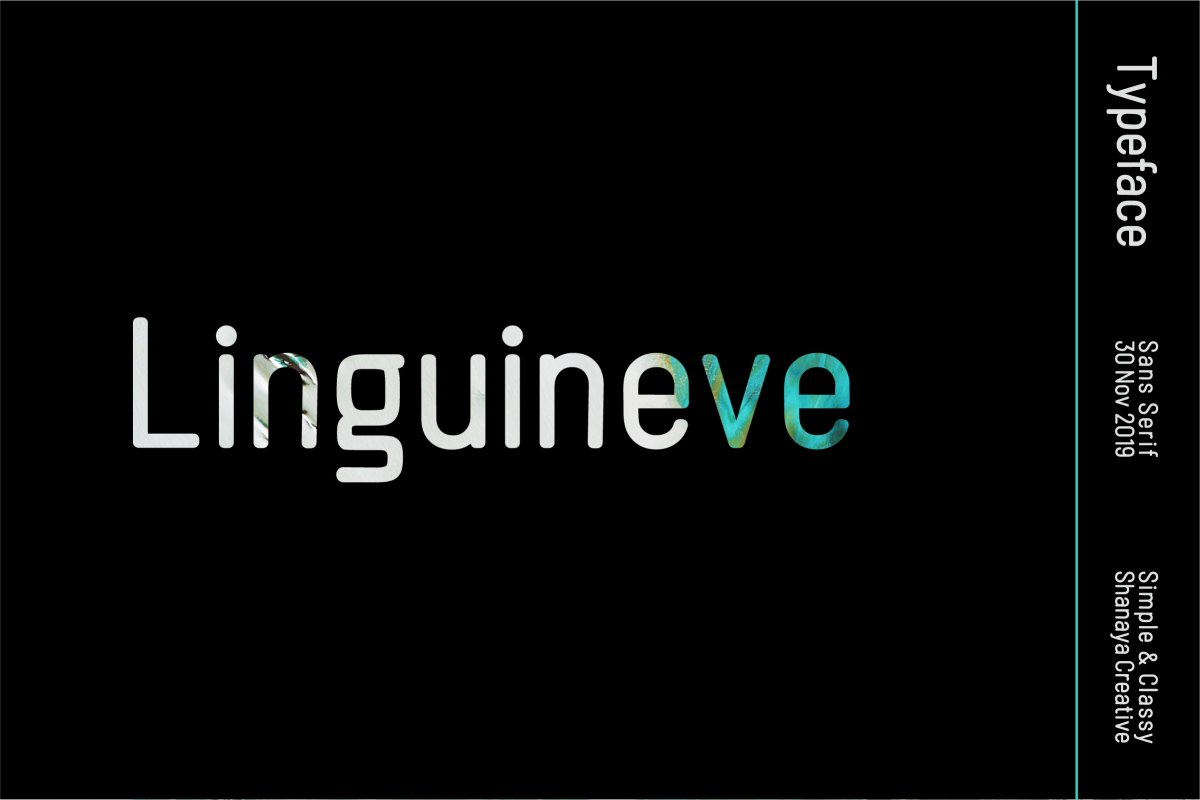
Linguineve was inspired by the dominant performing arts using fonts with this shape, the tip of the shape being slightly oval with wide and high alignment. The advantage of Linguineve is that each letter that is easy to read compiles to make sentences. The font is versatile and can be used successfully in Magazines, Poetry, Flyers, Brochures, Posters, Branding, Websites, etc.